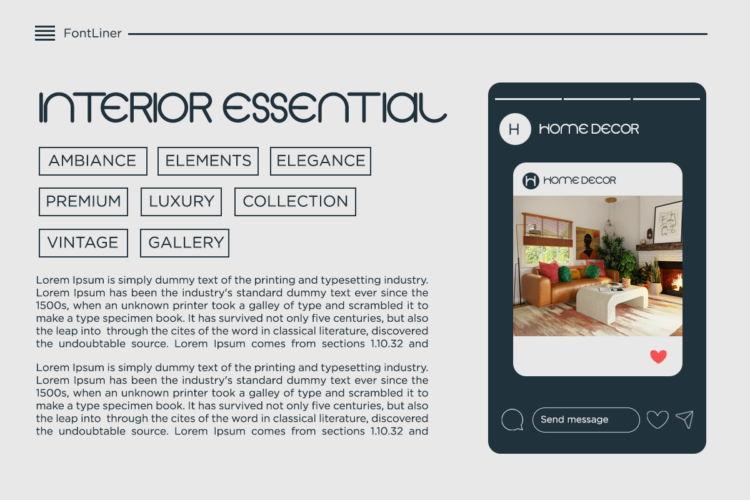
Nubico is a modern rounded sans typeface designed to feel friendly, clean, and effortlessly contemporary. With its soft curves and balanced proportions, Nubico brings a warm and approachable tone to modern typography while maintaining clarity and professionalism.
Inspired by minimalist design and digital-friendly aesthetics, Nubico is built for versatility. Its rounded letterforms create a smooth visual rhythm that works beautifully across branding, user interfaces, web design, and editorial layouts. The typeface feels light and welcoming without losing structure, making it suitable for both creative and functional projects.
Nubico includes regular and italic styles, allowing designers to build subtle hierarchy and emphasis with ease. Careful spacing and smooth curves ensure excellent readability on screens and in print, making Nubico a reliable choice for logos, apps, websites, presentations, and marketing materials.
Whether you’re creating a modern brand identity, a digital product, or clean visual communication, Nubico delivers a friendly yet professional typographic voice. It’s a rounded sans designed to support modern design with clarity, warmth, and simplicity.
Nubico – Rounded Sans